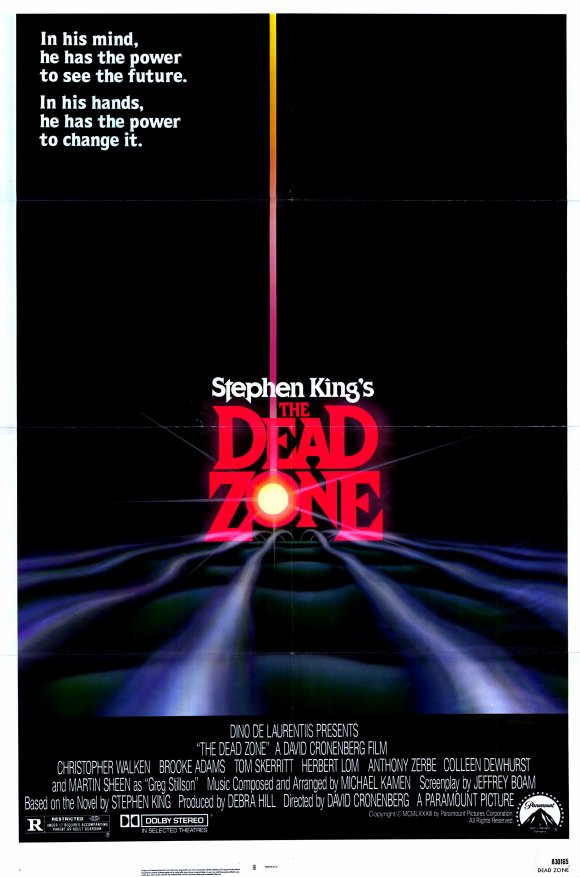
The Dead Zone (Film) Font
Fonts in UseThe Dead Zone is a 1983 film directed by David Cronenberg and based on the novel by Stephen King. The film stars Christopher Walken as a man who gains psychic abilities after awakening from a five-year coma and must decide whether to use his powers for good or evil.
The film's title font on the poster is Cortez, which is a bold serif font with a distinctive wedge shape. Philip Kelly designed this font for Letraset in 1977.